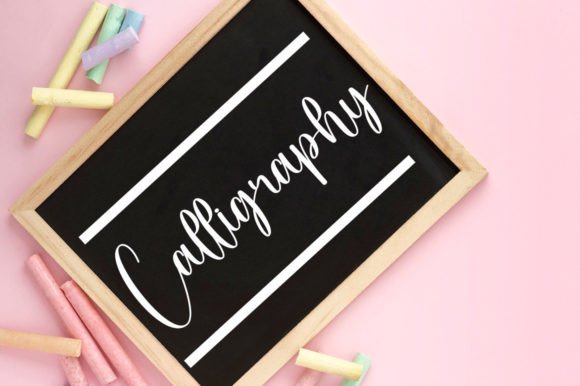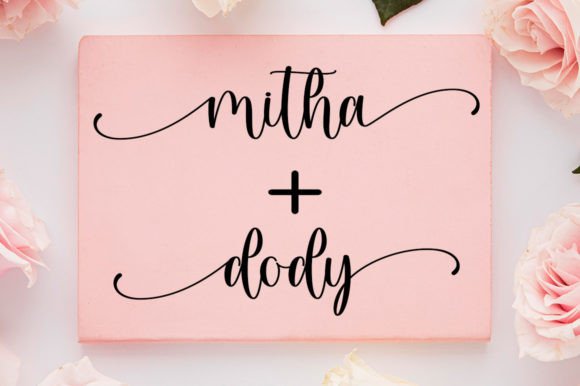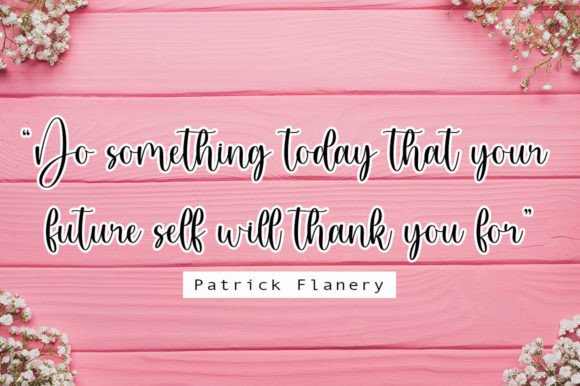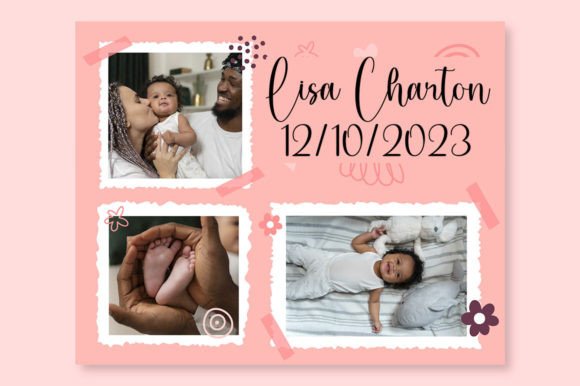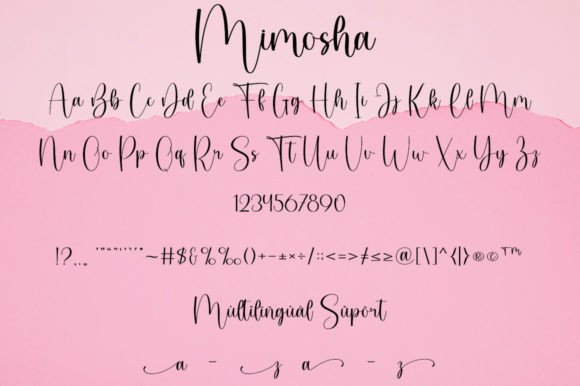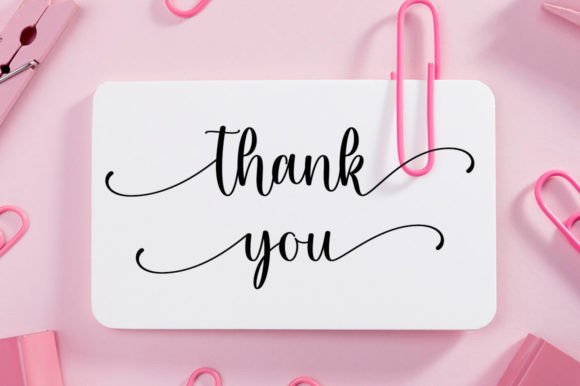
Introduction to Mimosha Font
Mimosha is a romantic and sweet calligraphy typeface with characters that dance along the baseline.
It will add a luxury spark to any design project that you wish to create .
Mimosha Font offers exceptional quality and versatility, making it a valuable addition to your design toolkit. Whether you’re creating for personal projects or commercial use, Mimosha Font delivers professional results.